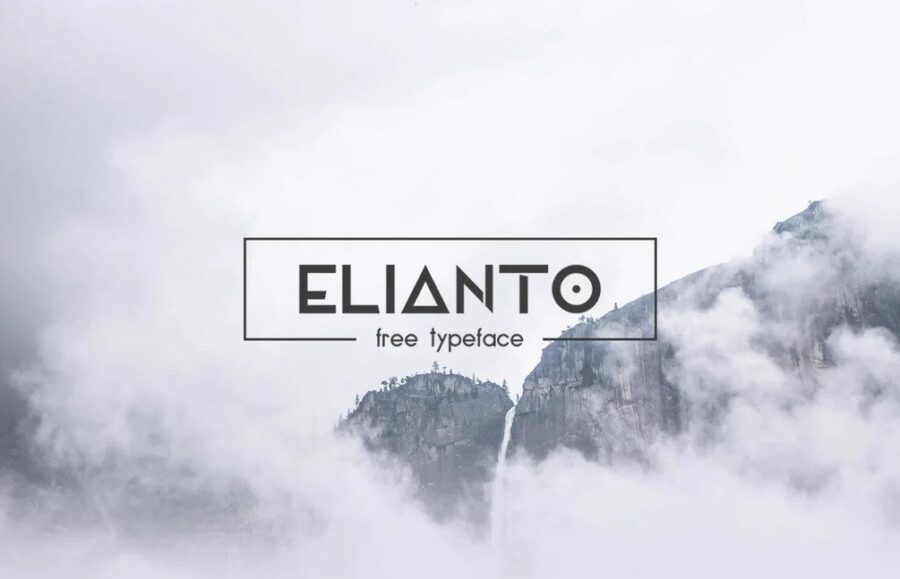
Elianto is a free font designed by Ema is free sans serif font that contains uppercase, lowercase, accent, and glyphs. Free for personal and commercial use.